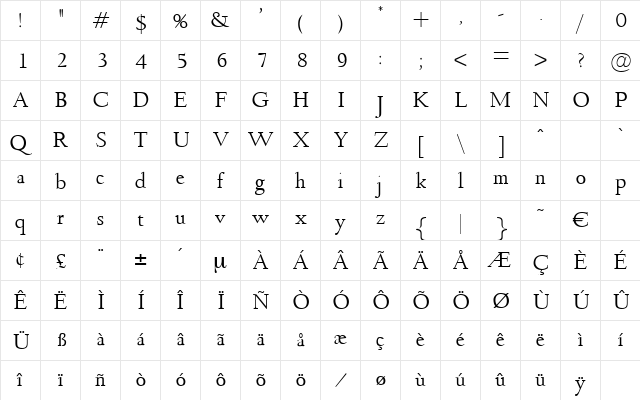
ChampagneNormal Regular
Design Context for ChampagneNormal Typeface
ChampagneNormal takes a measured approach to typography — its balanced proportions and neutral character make it a reliable workhorse for both digital and print work.